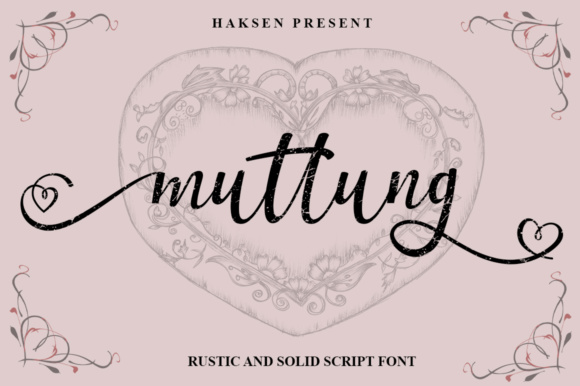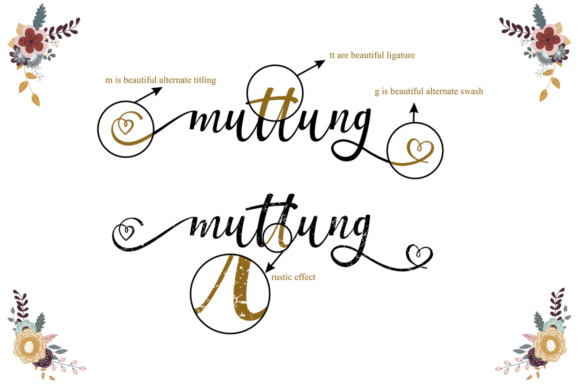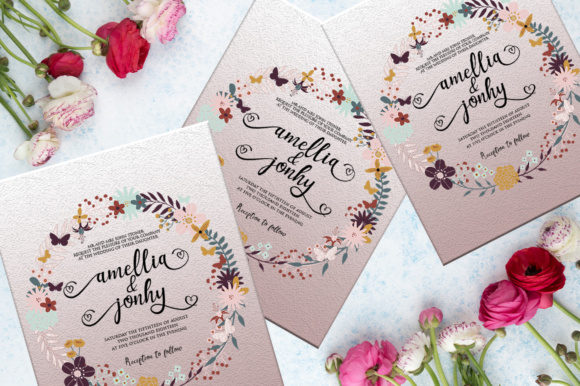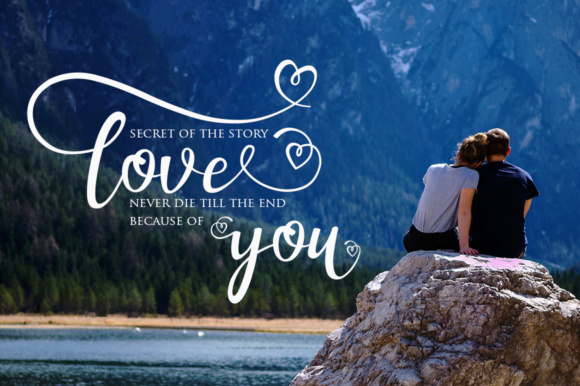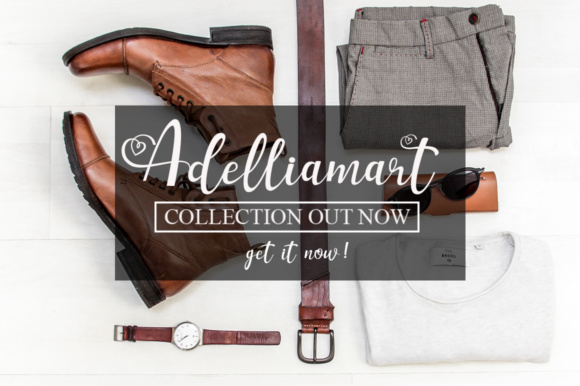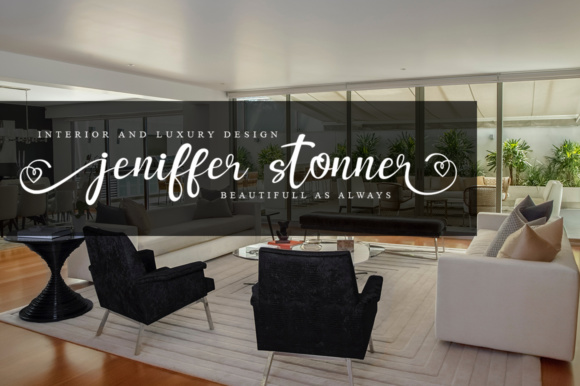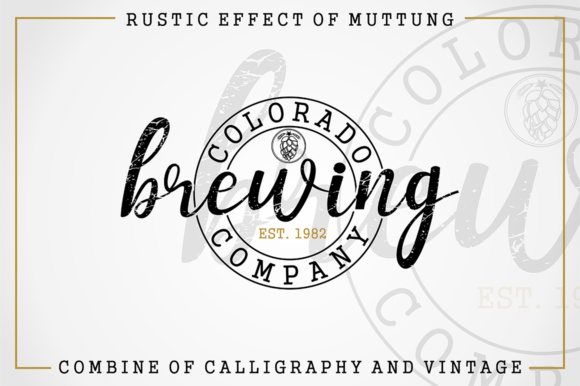
Muttung Script Font
About Muttung Script Font
Muttung is a beauty font script wich comes in two styles:
Muttung Solid – designed for any beauty brand and comes with many alternates to provide your requirement.
Muttung Rustic – designed for beauty brands and comes with a vintage sensation.